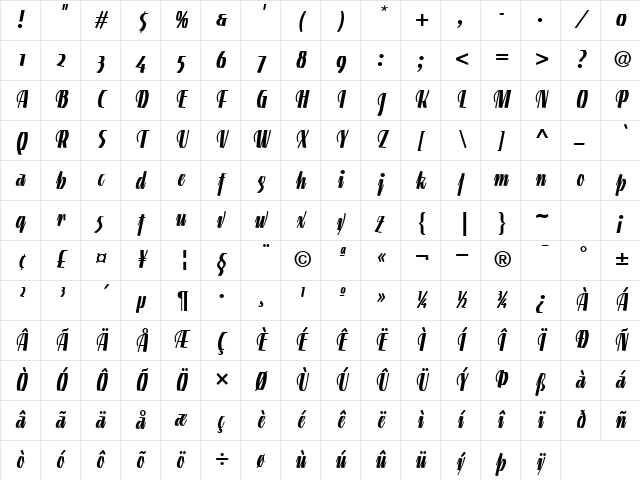
LTGneisenauette LightAlt Bold
Design Context for LTGneisenauette LightAlt
LTGneisenauette LightAlt is a composed and adaptable typeface that performs quietly and consistently across a wide range of design contexts. Its bold stroke weight gives it real presence on the page.